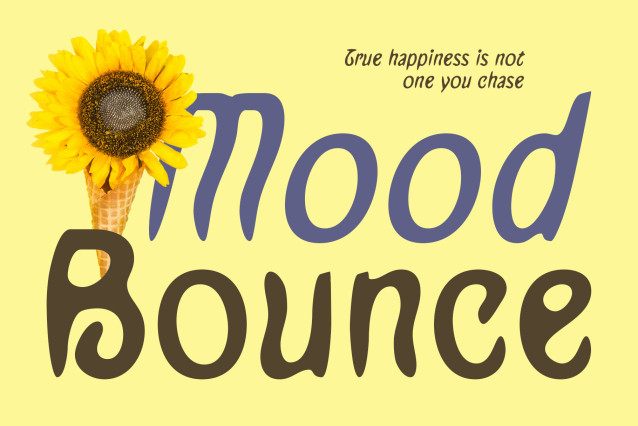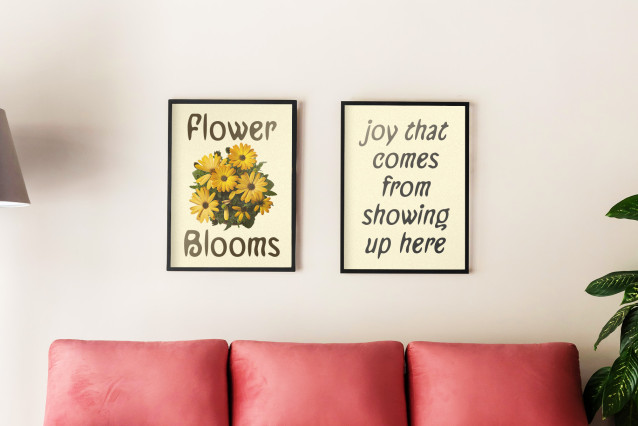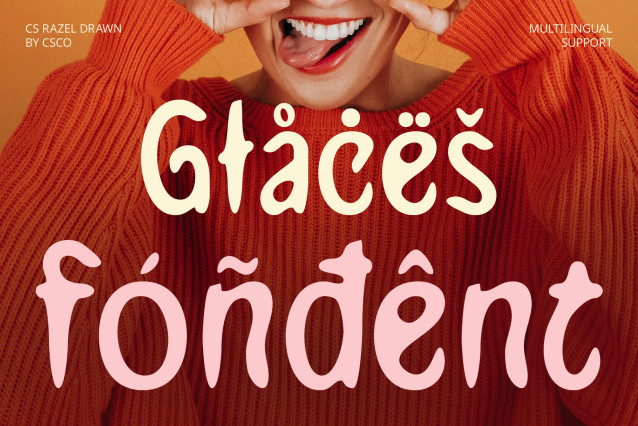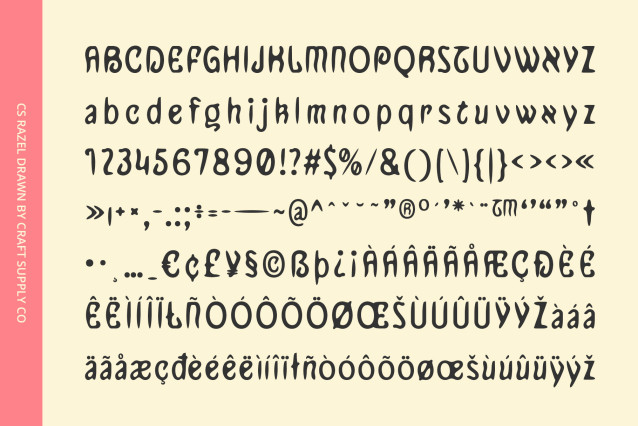
CS Razel Drawn Font
CS Razel Drawn Font is a modern sans serif display font inspired by the timeless beauty of Art Nouveau design. Its graceful curves, ornamental lines, and refined structure reflect the charm of the late 19th-century aesthetic, reimagined through a contemporary lens.